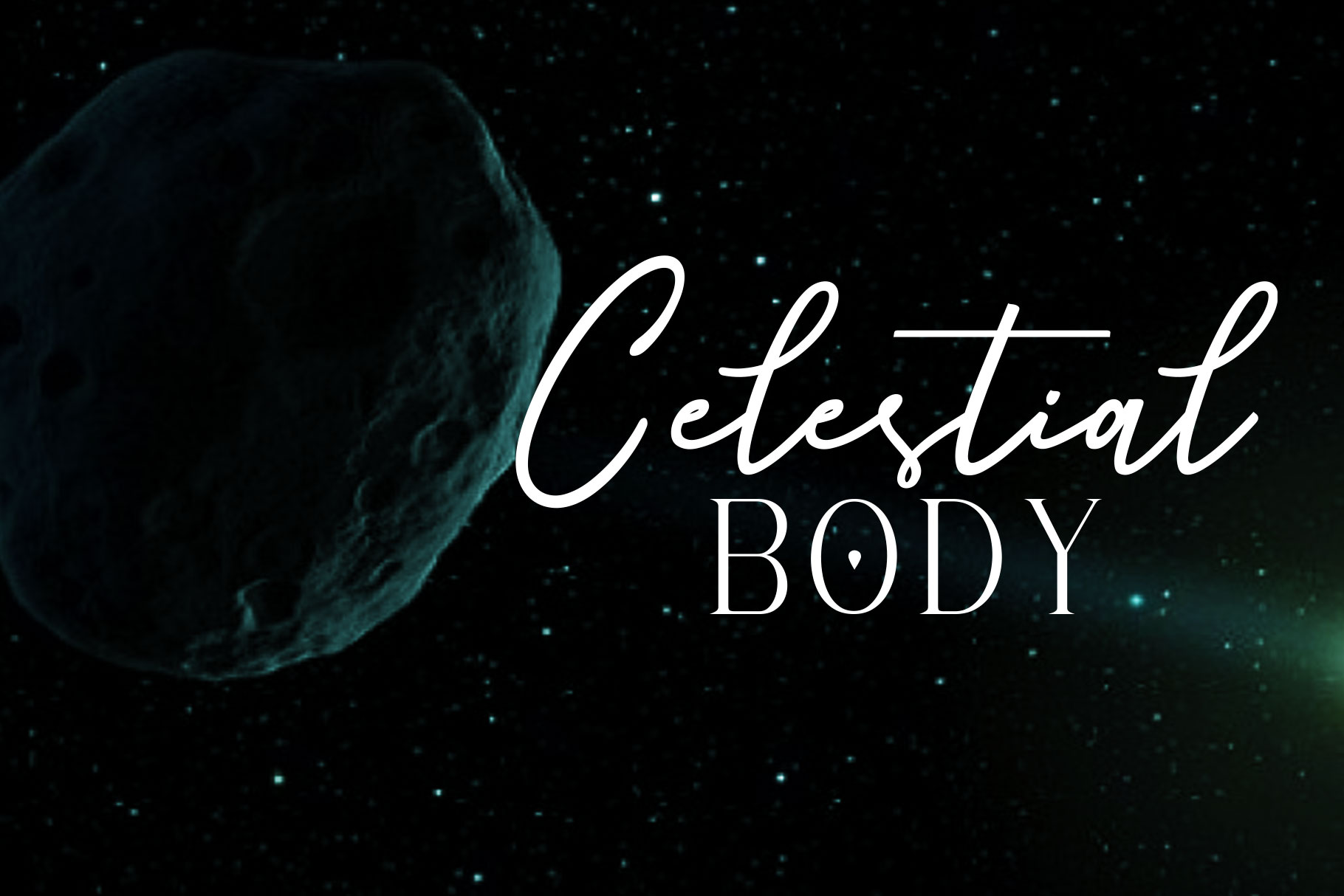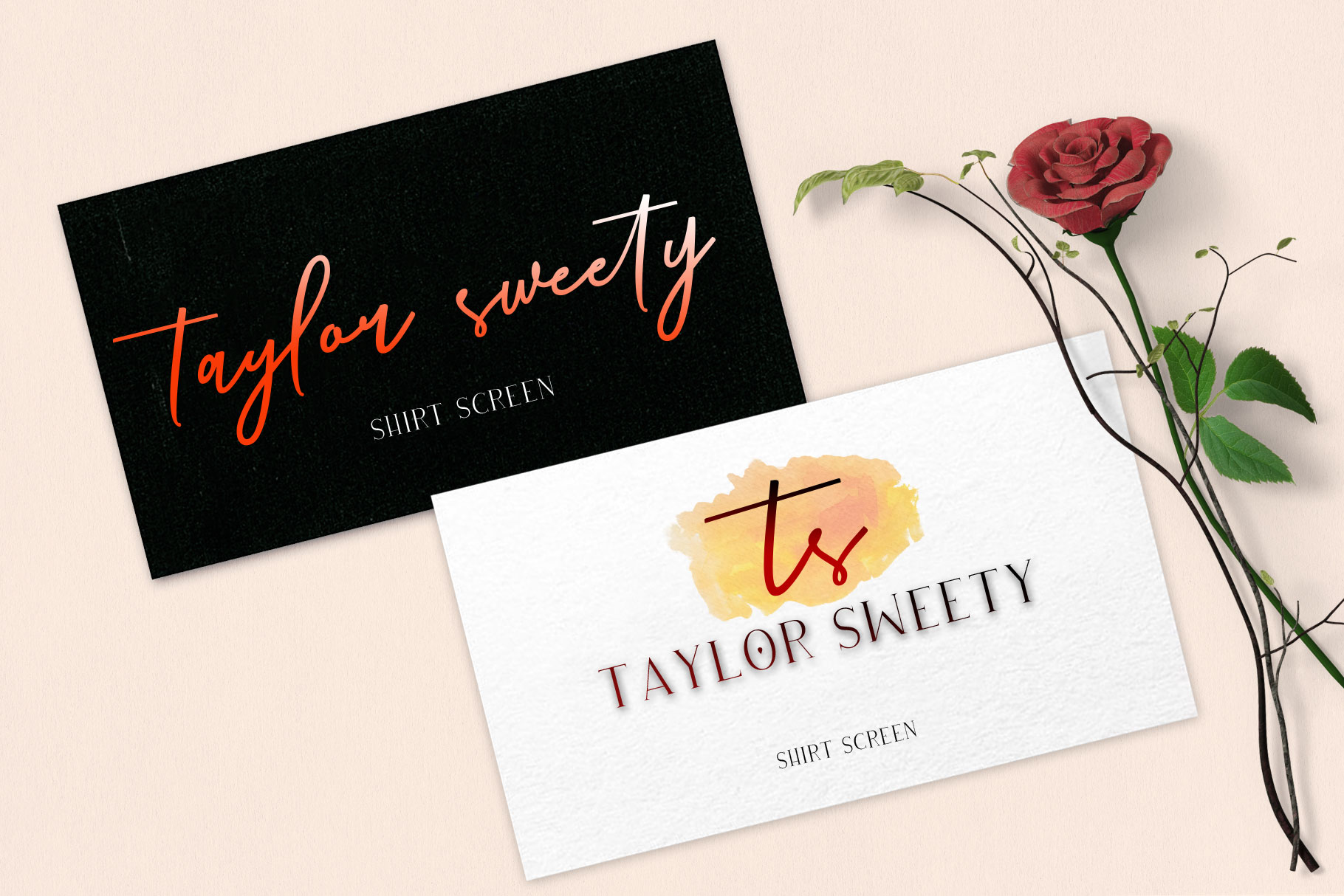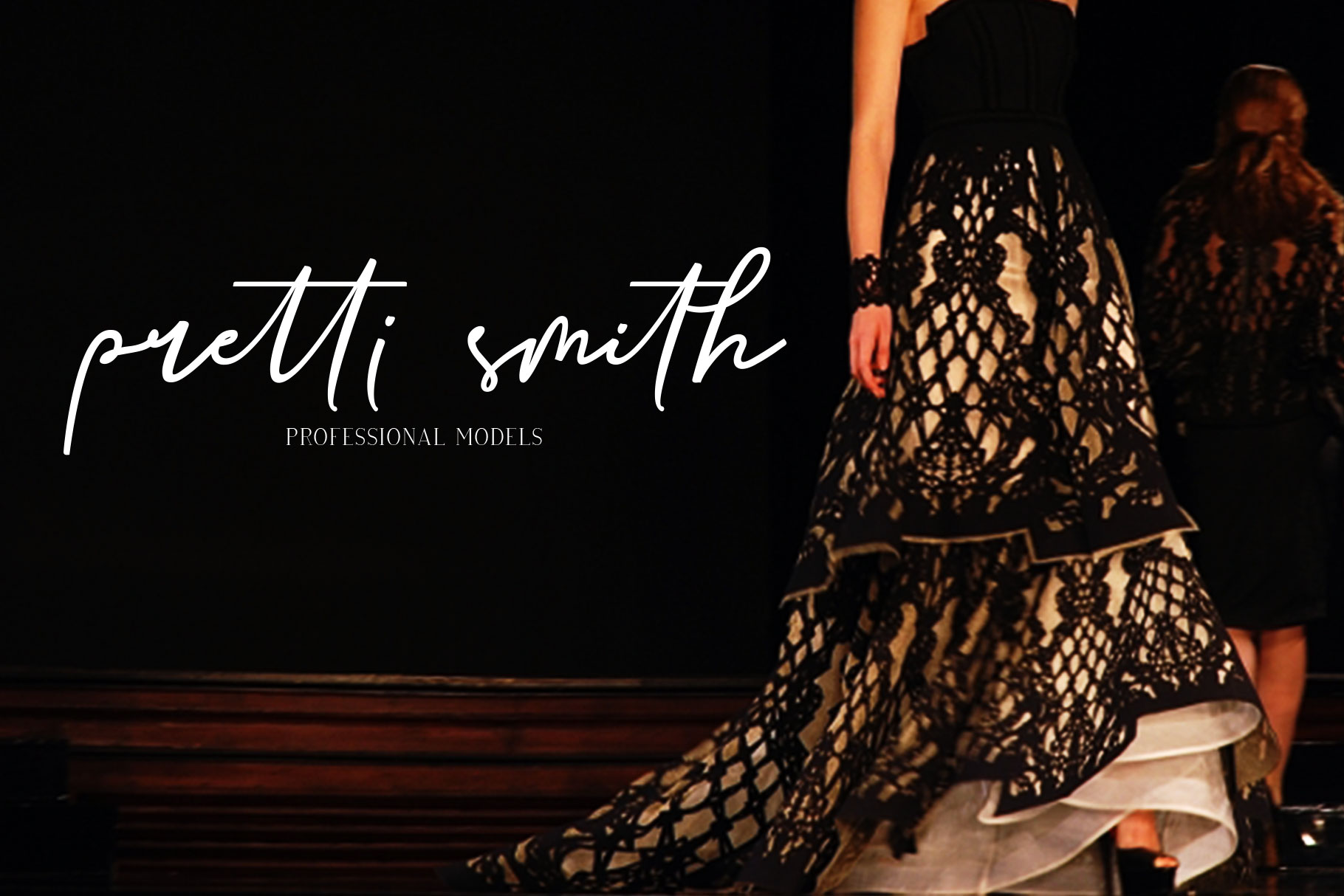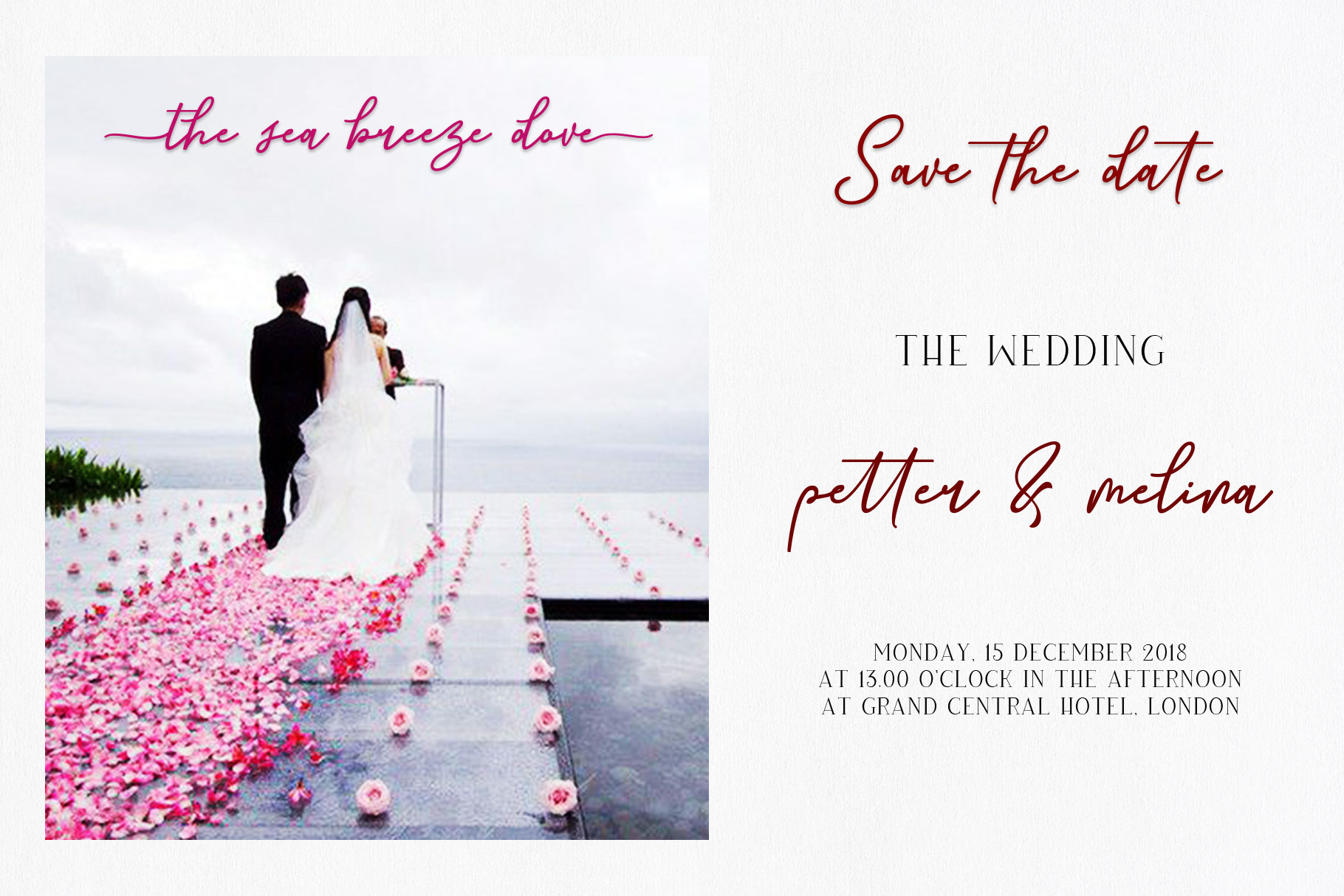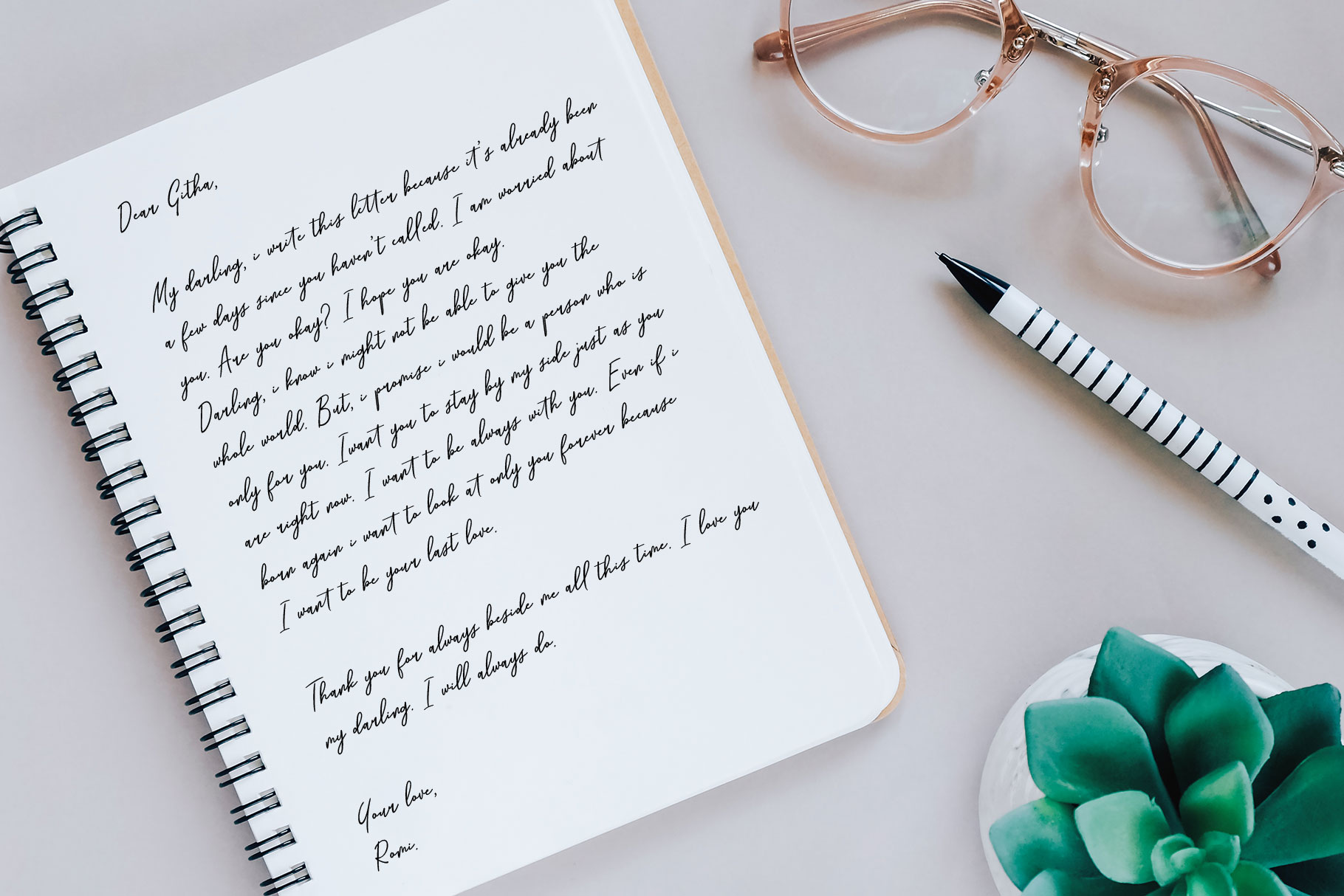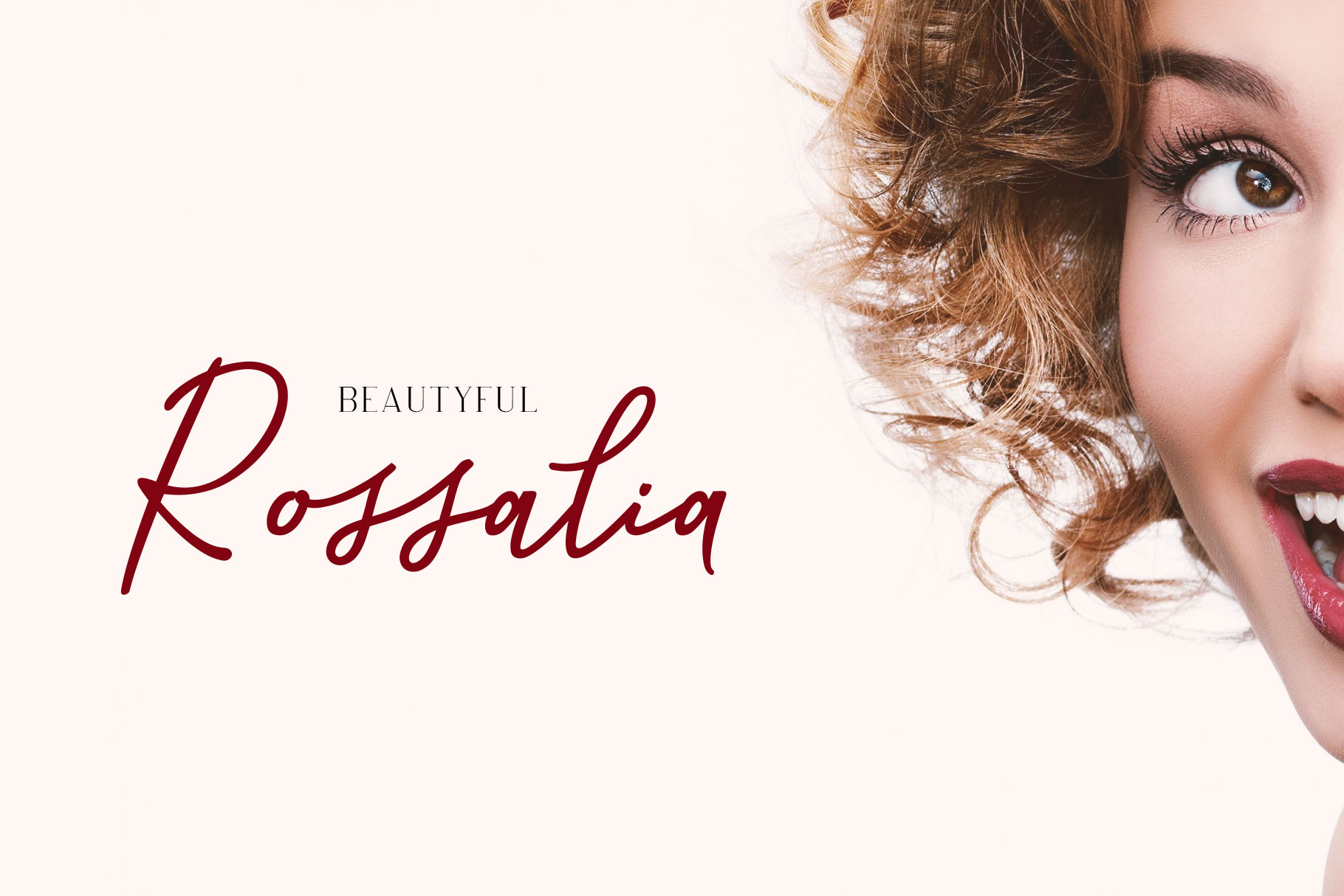
An Honest Review of Githa Lovely Font
- ✨ Modern and Elegant: Githa Lovely is a stunningly modern font duo that exudes elegance and sophistication.
- ✅ Perfect for Editorial Pieces: Its harmonious and refined aesthetic makes it ideal for use in highly editorial pieces of work, such as magazines, blogs, and newspapers.
- 💕 Versatile and Flexible: The font duo comes with a range of OpenType features, glyphs, and stylistic alternates, giving you plenty of creative options.
While Githa Lovely is an exceptional font duo, there are a few minor quirks to be aware of:
- 🤔 Limited Use in Display Settings: While it’s gorgeous in body text, using Githa Lovely in large display settings might not be the best choice, as it may lose some of its elegance.
The Story Behind Githa Lovely Font
While the origins of Githa Lovely are shrouded in mystery, it’s clear that the designers were inspired by the world of high-end fashion and luxury publishing. The result is a font duo that exudes refinement, elegance, and sophistication.
Q: What type of projects is Githa Lovely best suited for?
A: Githa Lovely is perfect for projects that require a harmonious balance of elegance and modernity, such as wedding invitations, editorial pieces, and luxury branding.
Q: Does Githa Lovely come with OpenType features?
A: Yes, Githa Lovely includes a range of OpenType features, glyphs, and stylistic alternates, making it a versatile and flexible font duo.